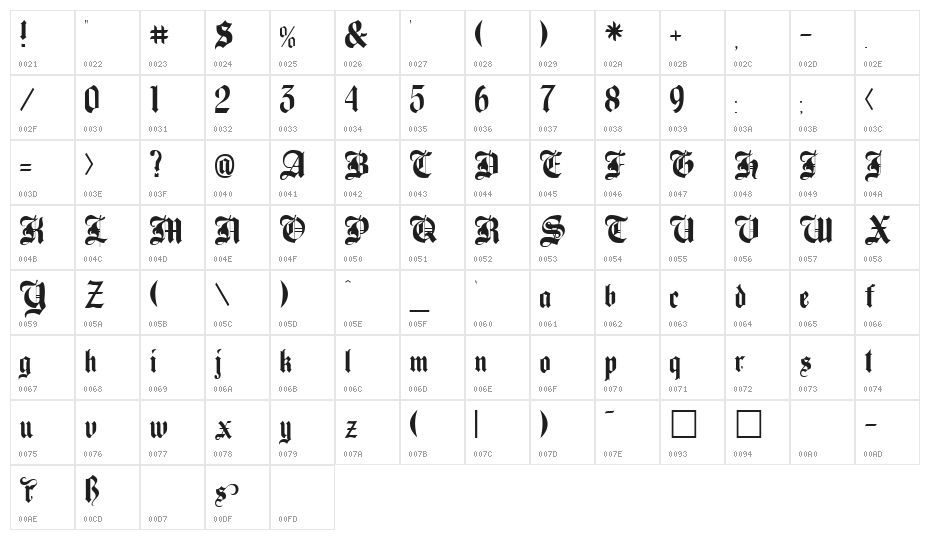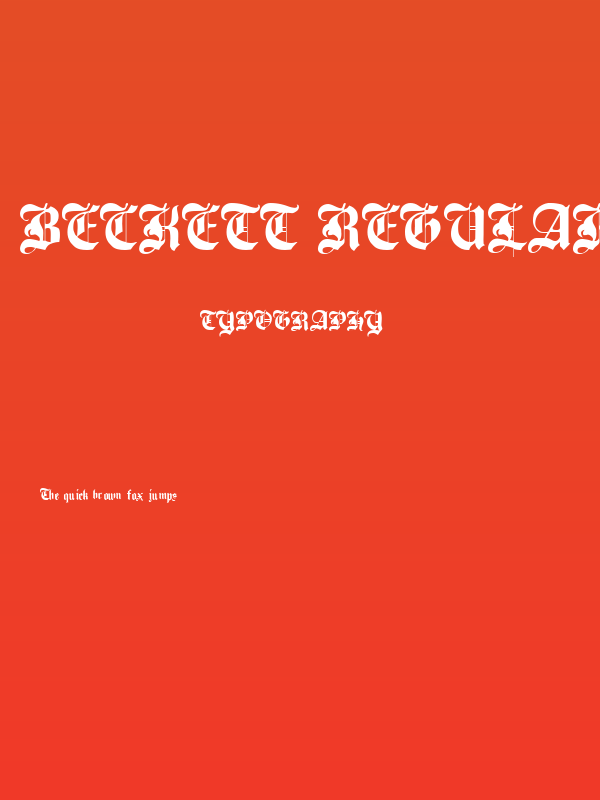
Beckett Regular Font
Beckett Regular Description
This font exudes a classic and traditional feel, reminiscent of historical scripts with its intricate and ornate design. The characters are embellished with flourishes and sharp edges, creating a sense of elegance and formality. The uppercase letters are particularly elaborate, featuring bold strokes and decorative elements that enhance their visual impact. The lowercase letters maintain a consistent style, offering a harmonious blend of readability and artistic flair. Numbers and special characters are crafted with the same attention to detail, ensuring a cohesive appearance across all glyphs. This font is ideal for projects that require a touch of sophistication and a nod to historical typography.
Overall StyleClassic
Use CaseLogos, Headlines, Decorative text
Proposed ProjectsIdeal for wedding invitations, historical documents, certificates, and branding that requires a traditional touch.